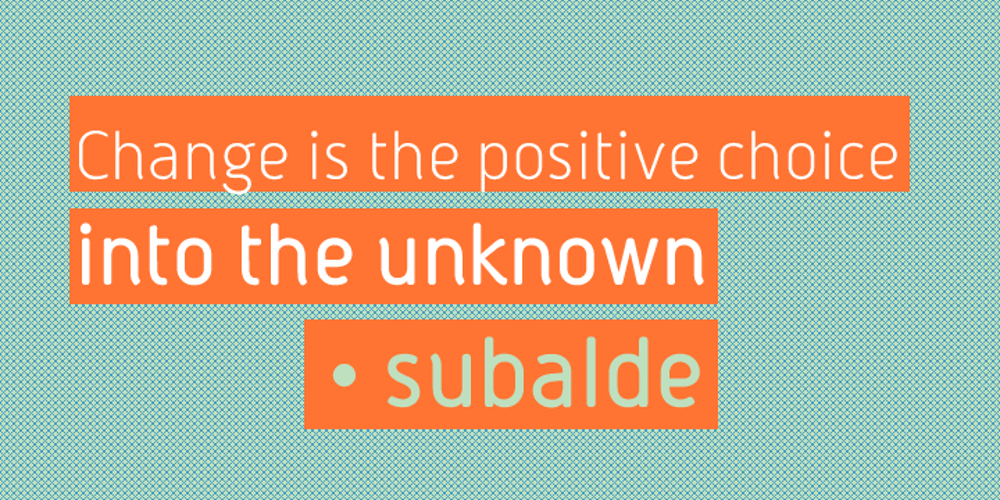
Subalde
Subalde font
Subalde Font Family was designed by Valérie Desrochers and published by Subtitude. Subalde contains 2 styles and family package options. The first glyph of the subalde font was based on handwriting. It soon became an example of clean sans serif typography. The final result is a modern font with an subtle touch.